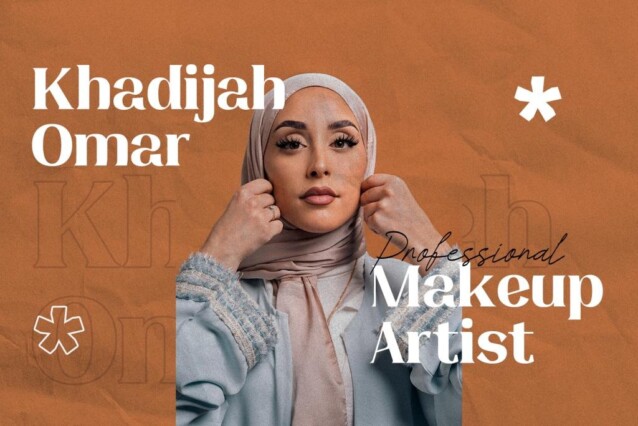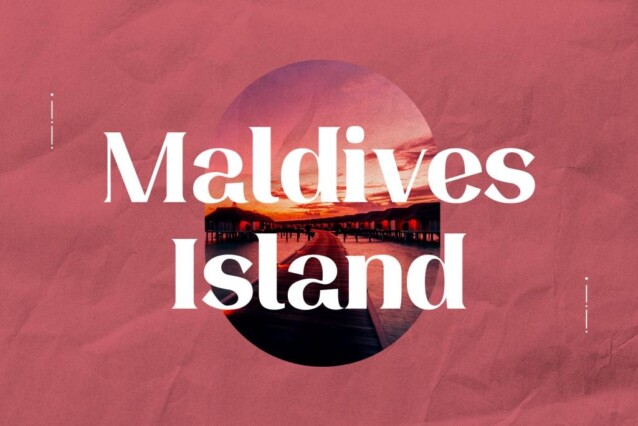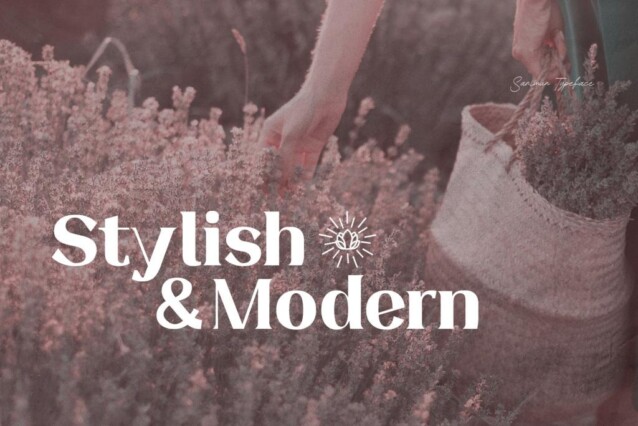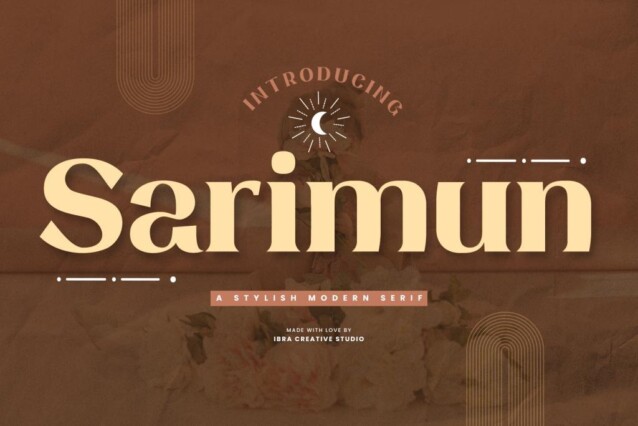
Sarimun Font
Sarimun Font is a elegant serif font from IbraCreative that will add a touch of luxury and style to your projects. With its refined lines and well-balanced letterforms, Sarimun exudes a timeless sophistication while also embracing a distinct contemporary flair. The font’s clean, geometric shapes and sharp serifs give it a polished and stylish appearance, making it an excellent choice for design projects that demand a harmonious blend of tradition and innovation. Sarimun’s versatility and refined charm make it a go-to typeface for those seeking to infuse their creations with a touch of timeless sophistication and contemporary allure.